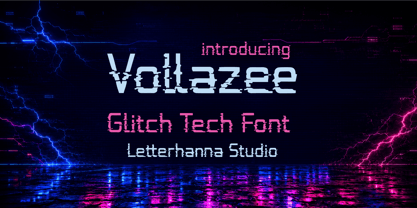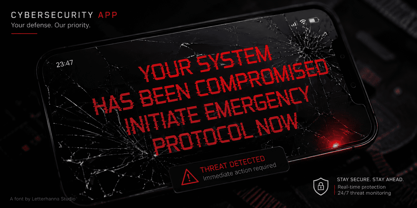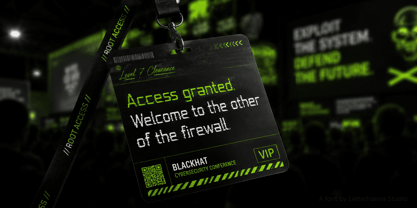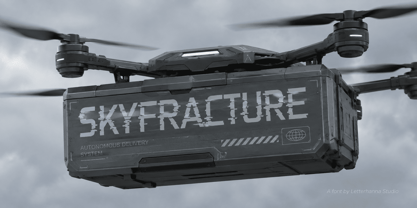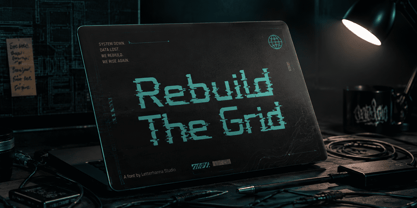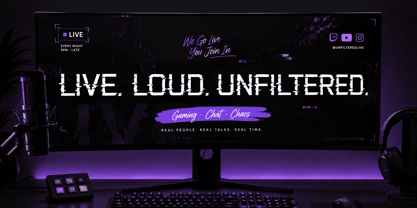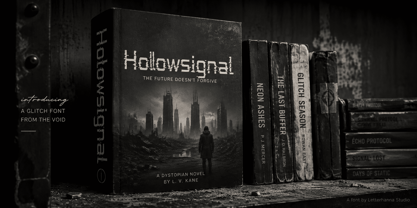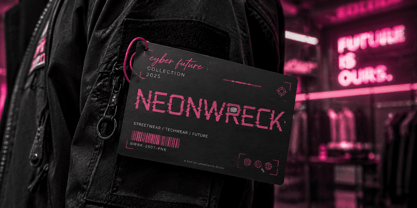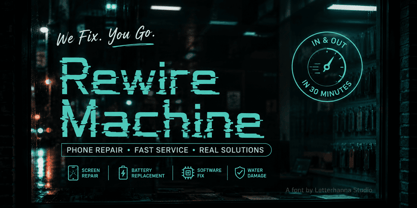
Vollazee
by Letterhanna Studio
The Vollazee Font Family was designed by Rinaldo Hasibuan and published by Letterhanna Studio. Vollazee contains 1 styles. More about this family
Every designer knows the feeling. You open your font folder, scroll past hundreds of clean sans-serifs, and still can't find "the one." Everything looks safe. Everything looks the same. That flat, overused feeling is exactly why glitch font styles like Vollazee exist.
Vollazee isn't just broken for the sake of being broken. Look closely and you'll notice deliberate scan-line cuts running through each letterform, like a signal losing connection mid-transmission. It's the visual language of static, corrupted data, and digital decay — but shaped into something you can actually read at a glance.
Here's where it gets confusing for a lot of designers: do you go distressed, or do you go futuristic? Distressed font styles feel worn, raw, and human — think rust, cracked concrete, old warning labels. Futuristic font styles feel cold, precise, mechanical — think HUDs, terminals, sci-fi interfaces. Most typefaces force you to pick a lane. Vollazee doesn't.
That's the mindblowing part. Vollazee sits exactly between grit and precision. The base structure is clean and geometric, almost technical, while the surface texture feels torn, scratched, and unstable. One font, two entirely different design worlds, and neither one feels forced.
This dual identity is what makes Vollazee so useful in real projects. A streetwear label can use it and get instant edge. A cybersecurity startup can use the exact same font and read as sharp, modern, alert. Album covers, gaming logos, esports jerseys, festival posters, tech app splash screens — the glitch aesthetic reads as "something is happening here," which is exactly the reaction most brands are chasing.
There's also a practical pain point Vollazee solves. Distressed fonts often become illegible once texture is layered too heavy, and futuristic fonts often feel emotionless on their own. Designers end up stacking two or three typefaces just to get both grit and clarity in one composition. Vollazee collapses that into a single file, saving hours of trial and error in the middle of a deadline.
The glitch font trend isn't slowing down either. As more brands lean into cyberpunk, retro-tech, and underground digital culture, a typeface that can visually "malfunction" on command becomes a real asset, not a gimmick. Vollazee was built with that longevity in mind, with clean spacing and readable proportions underneath all that texture, so it still works in headlines, packaging, and UI elements without falling apart at small sizes.
If your last project felt too polished, too predictable, or just missing an edge, that's usually a font problem, not a design problem. Vollazee gives you the distressed, glitch-heavy texture your concept needs, without sacrificing the futuristic clarity that keeps it professional.
Designers: Rinaldo Hasibuan
Foundry: Letterhanna Studio